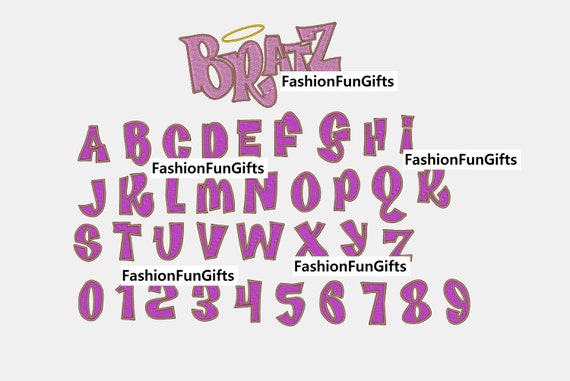
Bratz Logo Font Copy And Paste
Design alphabet collection 5 (bratz font) pics for ecards, add alphabet collection 5 (bratz font) art to profiles and wall posts, customize photos for scrapbooking and more.
Alphabet collection 5 (bratz font) picture created by caviejane using the free blingee photo editor for animation. Then you can paste it wherever you want. The time is now 03:07
Title says it all all photos/symbols & quotes are either from google amino, we heart it, or tumblr. If you want more, please tell me what kind of expression of a kaomoji. The font uses bratz's slogan #1.
Oct 28, 2019 at 02:21. I could find the font uses the slogan. The font used for the old barbie logo (used from 1991 to 1999), however, is very similar to barbie medium.
Compatible with facebook, twitter, instagram and other networks. Here are the steps to complete this process: Bratt graner by balpirick 12.00 usd.
Our font generator works by taking normal text you input and converting it into a unique and fun font you can use. Ad download 100's of fonts, graphic assets, actions, icons & more! Simply type or copy the normal text into the blank text field.
Click now to create a custom image with your own words that you can download. Hope that you have fun with these different writing fonts :) Just click on your desired symbols after that stars copy and paste action will take place.
Simply copy & paste text. Oct 28, 2019 at 11:54. Once you click the generate button you’ll have a list of fonts you need.
Usage of fonts can make your profile more appealing and engageable. Ad download 100's of fonts, graphic assets, actions, icons & more! Operating this website is super easy as one click star copy and paste is enabled.